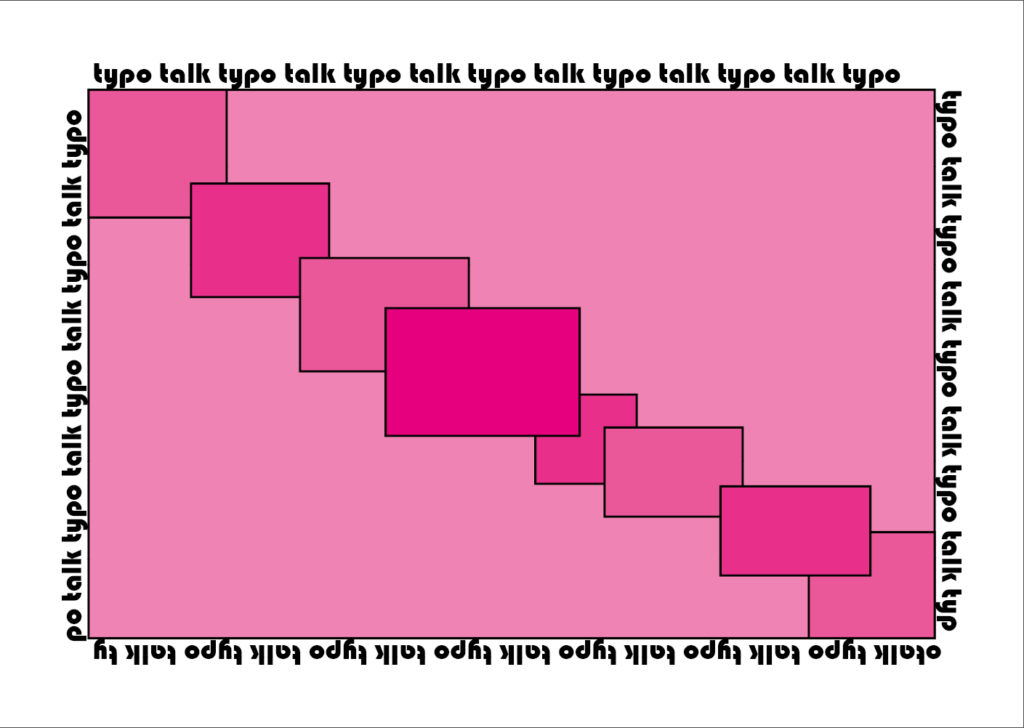
Design ideas and design process
My first design for the postcard project was experimental I used rectangles in different shades to make dimension and illusions. I then added the typography to the corners so it would add a frame to the design. This also made it look more even whereas before it looked wider due to the layout of the rectangles. I chose green as it is a calming colour with connotations of nature and peace. Also, it works well with white, making it stick out and complimenting the connotations of green.
In my second idea, I changed the colour scheme and layout. I changed the colour to pink/red the connotations of those are passion, anger, love, romance and danger. Obviously very different to the calming green. This will attach the attention of the audience very quickly as people pay attention to shades of red quite quickly due to warning signs being branded this colour. It is also a similar shape to a cross (x) symbolising no and stop. Not only this it makes the design appear more square and bigger than it is as the layering effect reaches out of the frame. This is balanced out by the typography levelling out the edges.
On my 3rd and final post card, I played around with the typography more. Initially, I kept my geometric theme but changed the shape to circles to create a bubble effect however I was fonder of the squares and thought the text wrapping would flatter rectangles better and appear more post card like. So, I thought about post card conventions and thought this style typography suited abstract postcards better. I used 4 different shades of pink to create the hierarchy between the colours, for example, darkest is at the front lightest
as at the back. Finally, I also chang
ed the font on this one to be more fun and abstract. The curvy, thickness creates a contrast between the sharp edges but the flat edges mean it still fits the rest of the design.